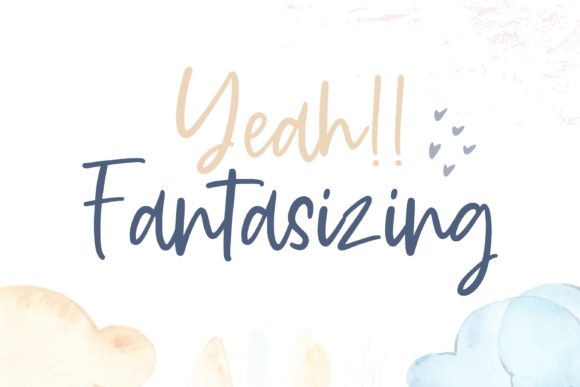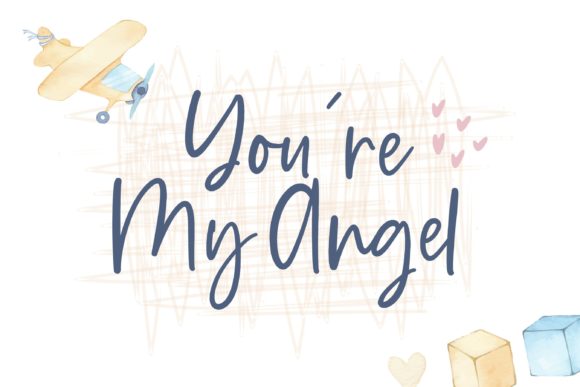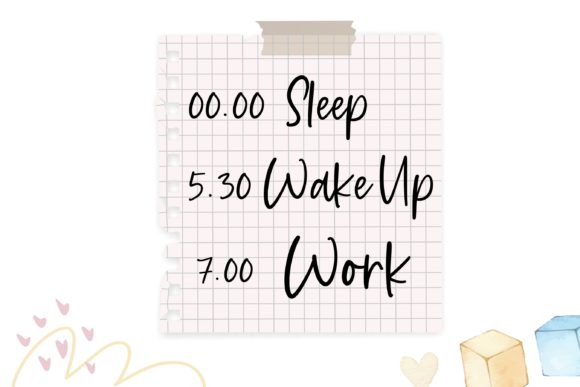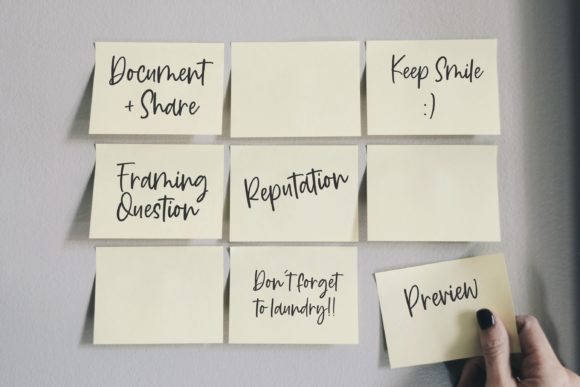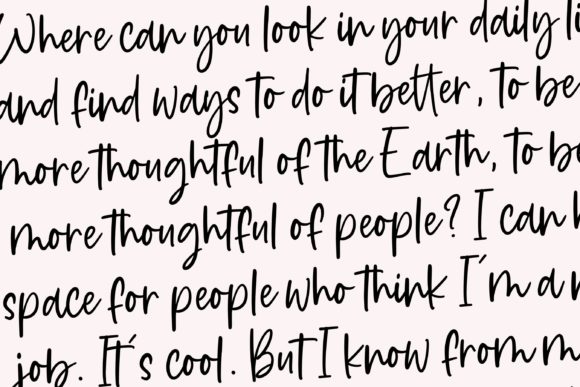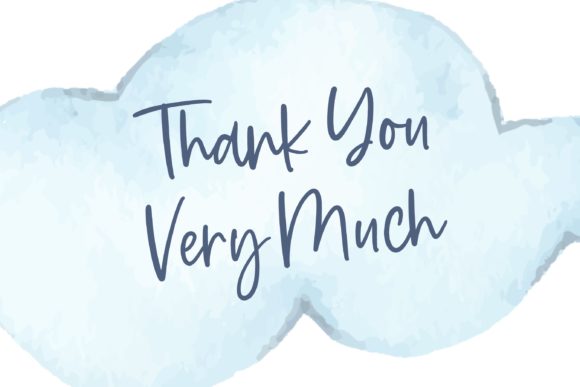
Daydream Font
About Daydream Font
Daydream is a unique and a bit quirky handwritten font. Its casual style makes it adept to a wide variety of designs. Daydream will look outstanding in any context, whether it’s being used on busy backgrounds or as a standalone headline!